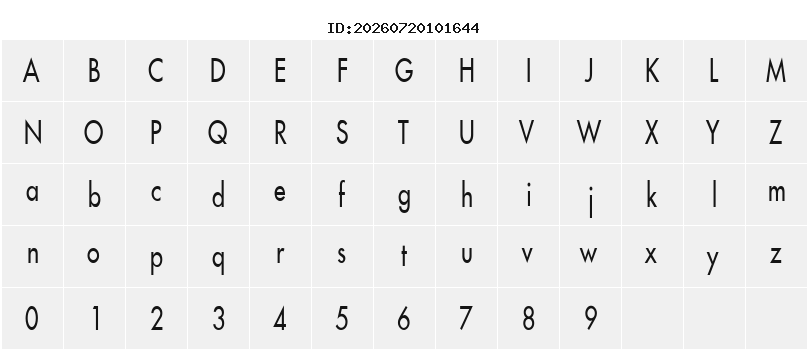
• Font Name: Fusi Condensed
About Fusi Condensed.ttf
Fusi Condensed.ttf is a modern, elegant sans-serif font designed for ultimate readability and visual harmony. Perfect for branding, headlines, web design, and print materials.